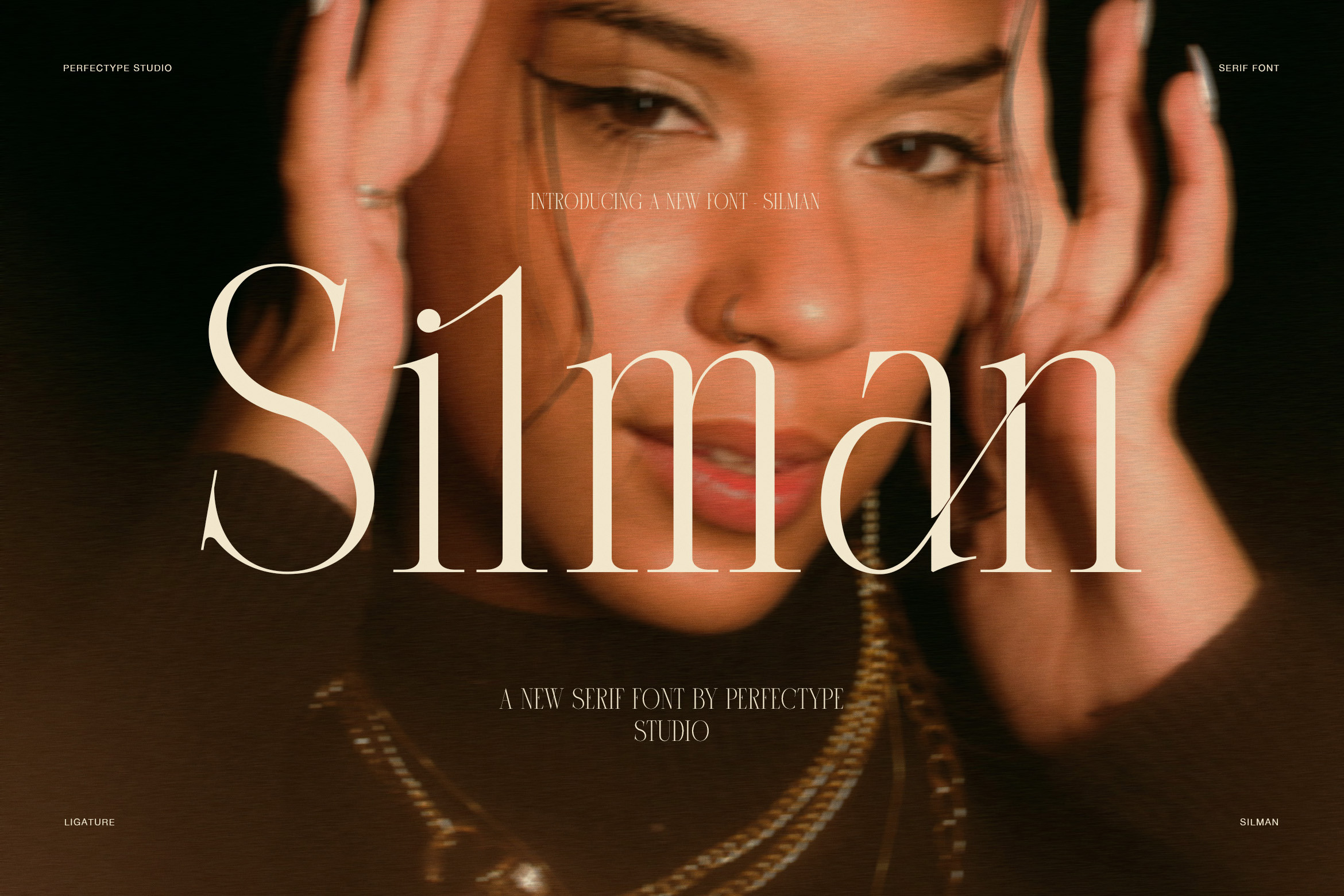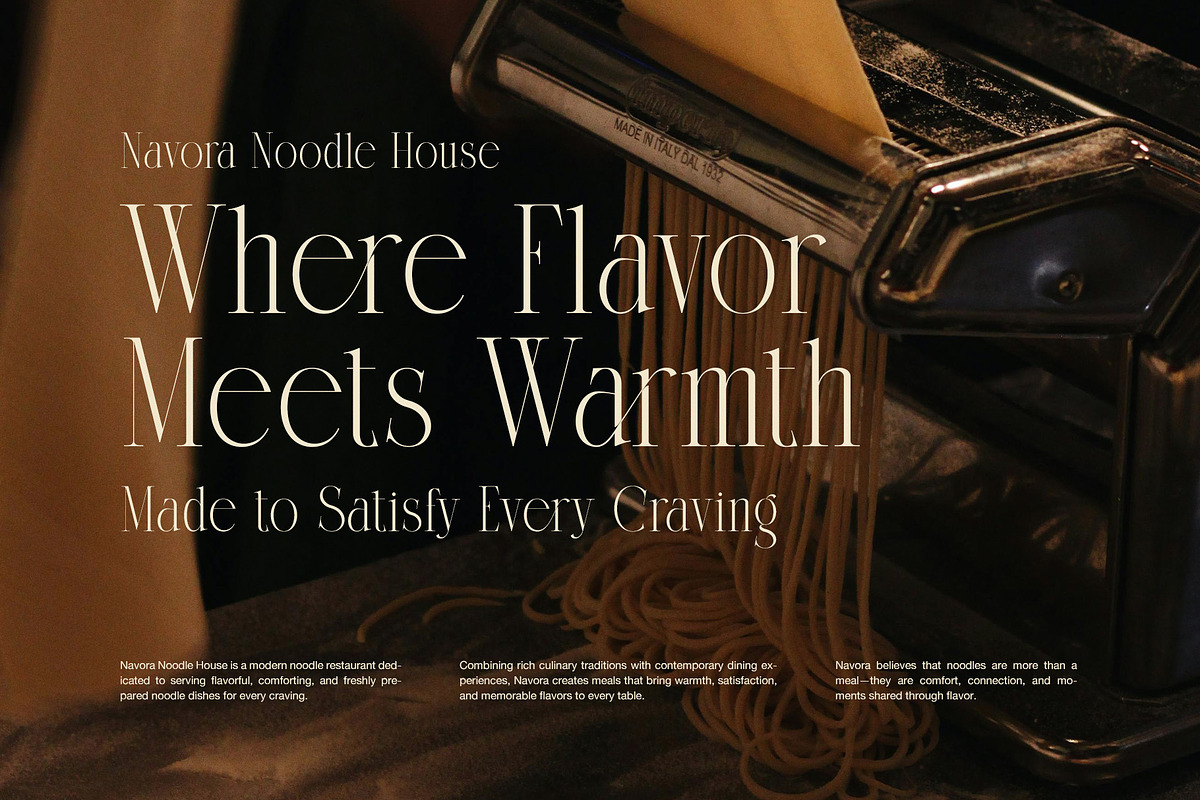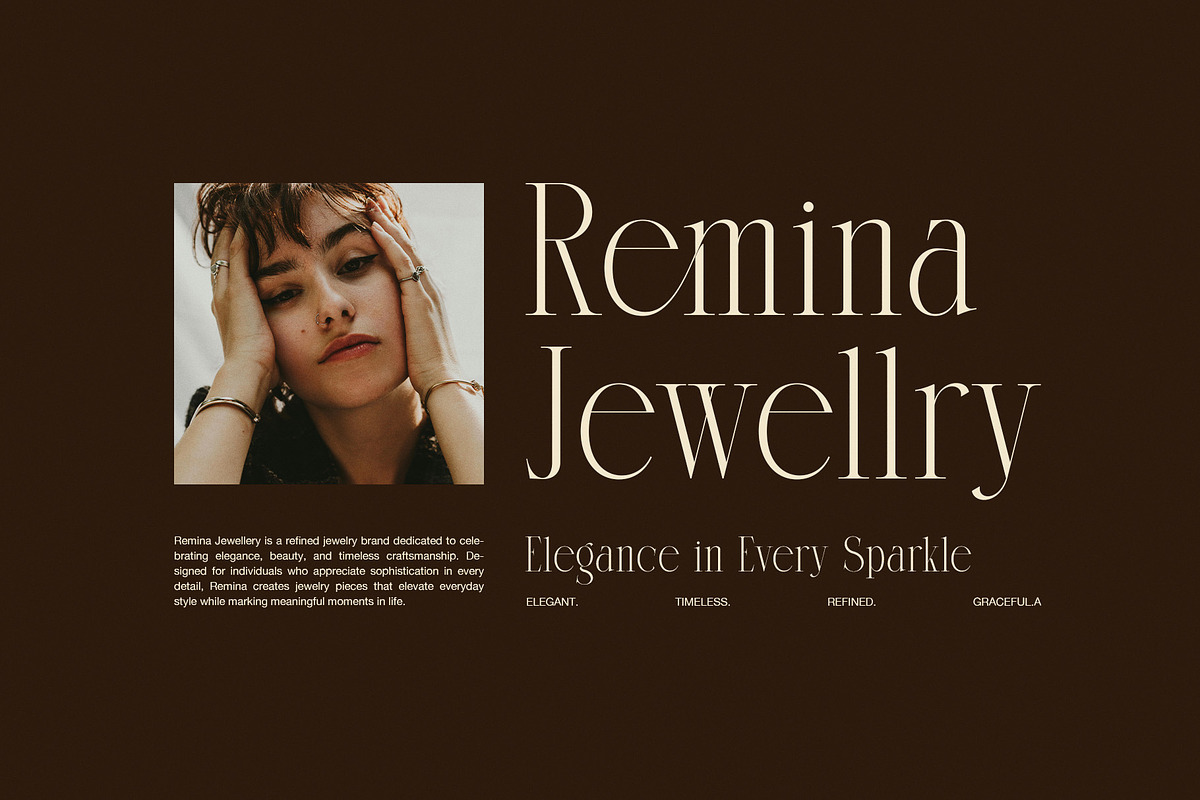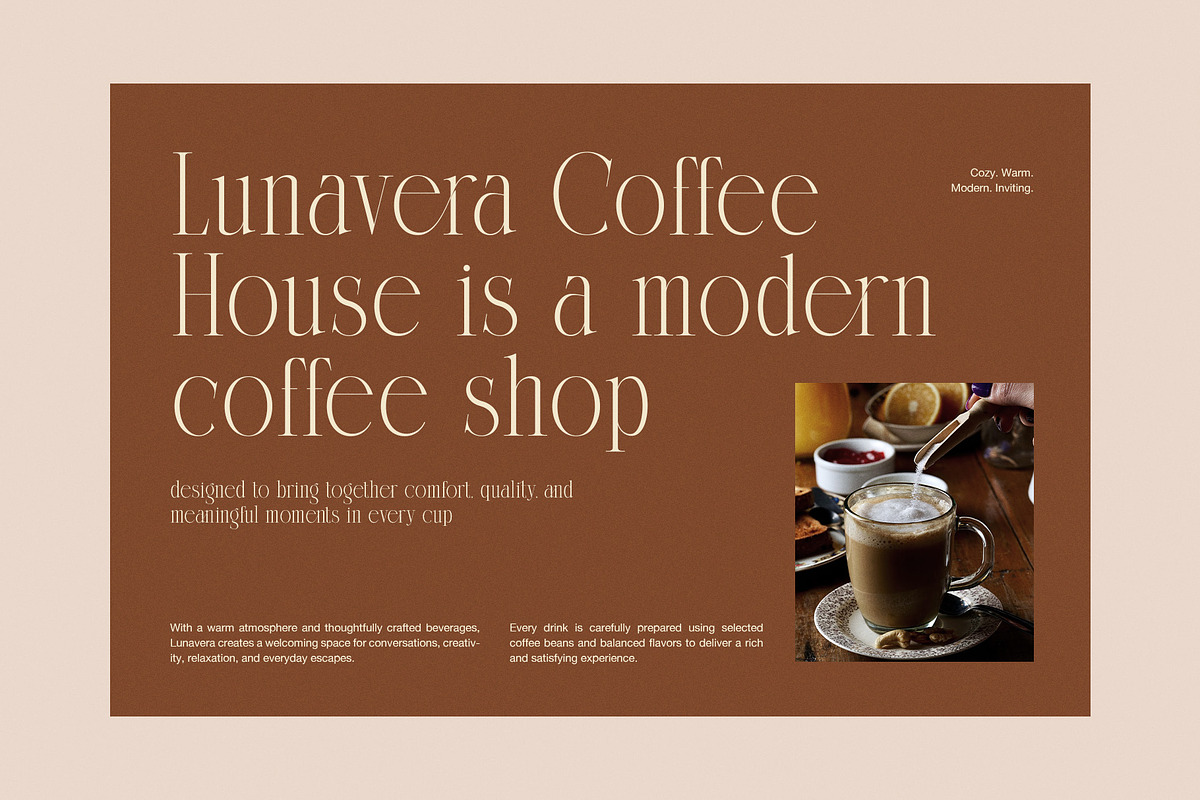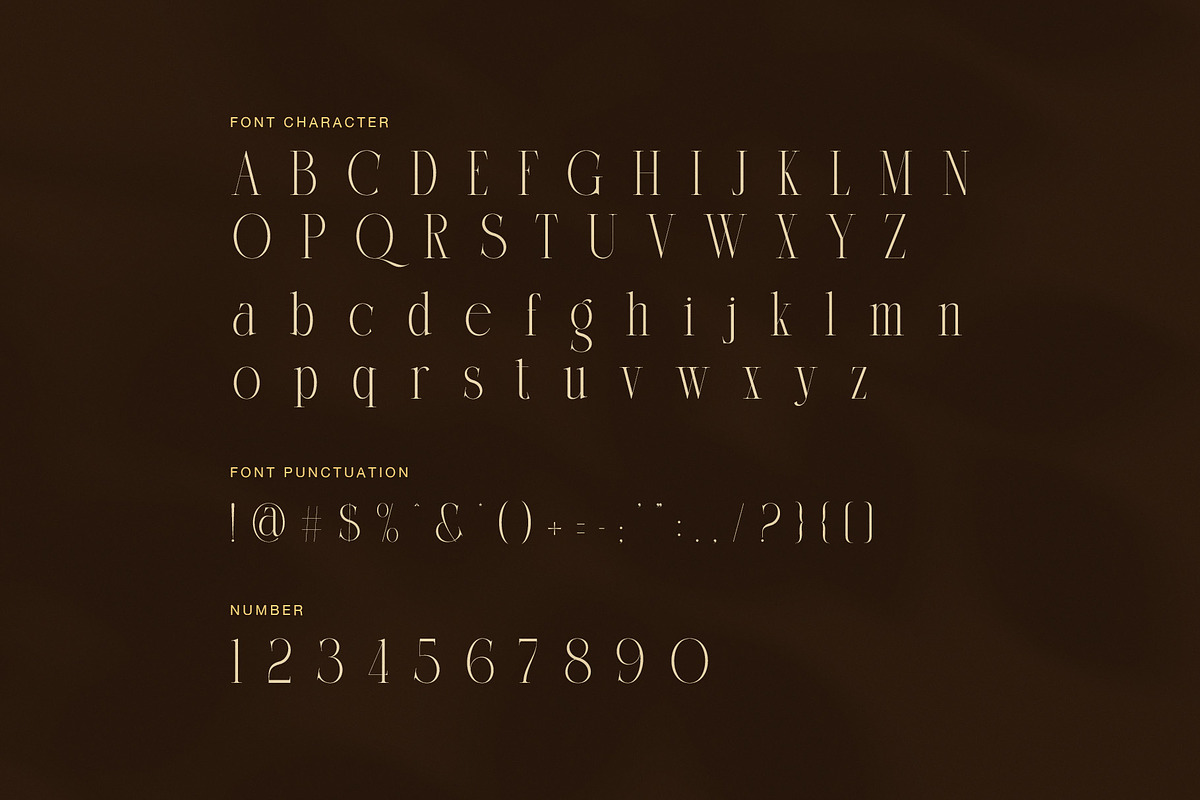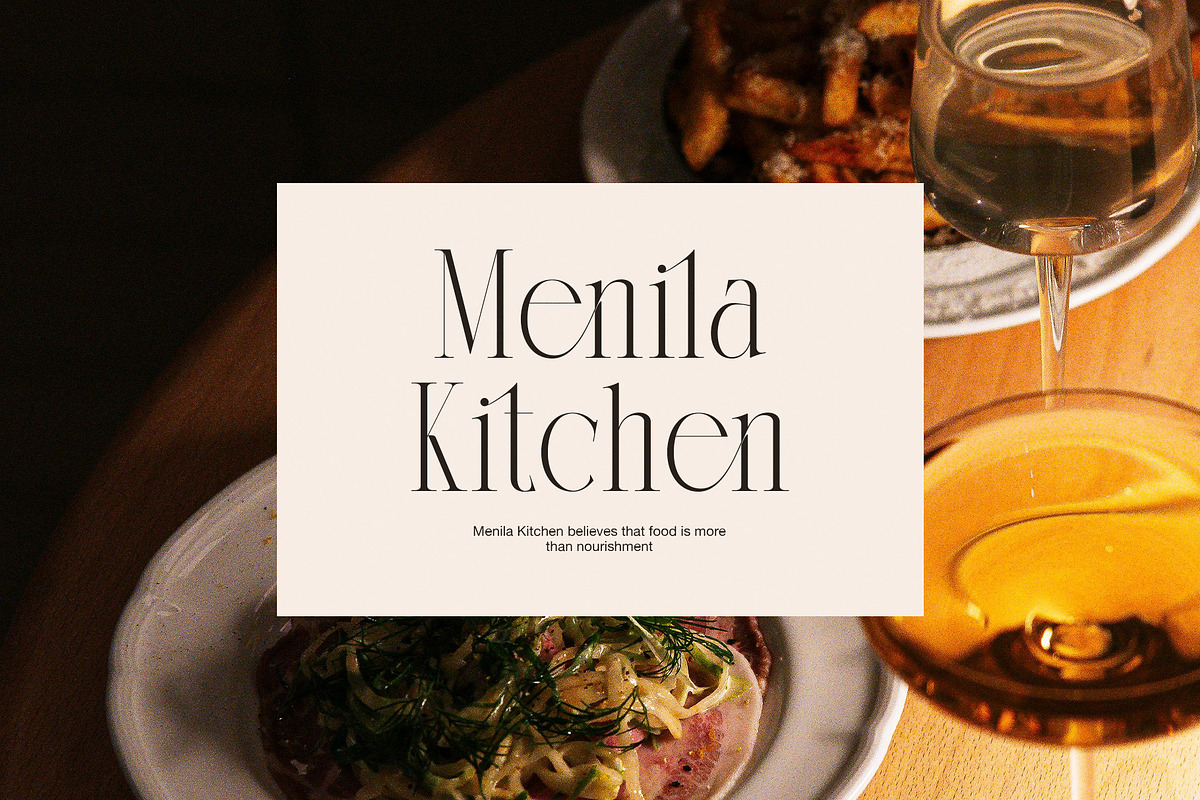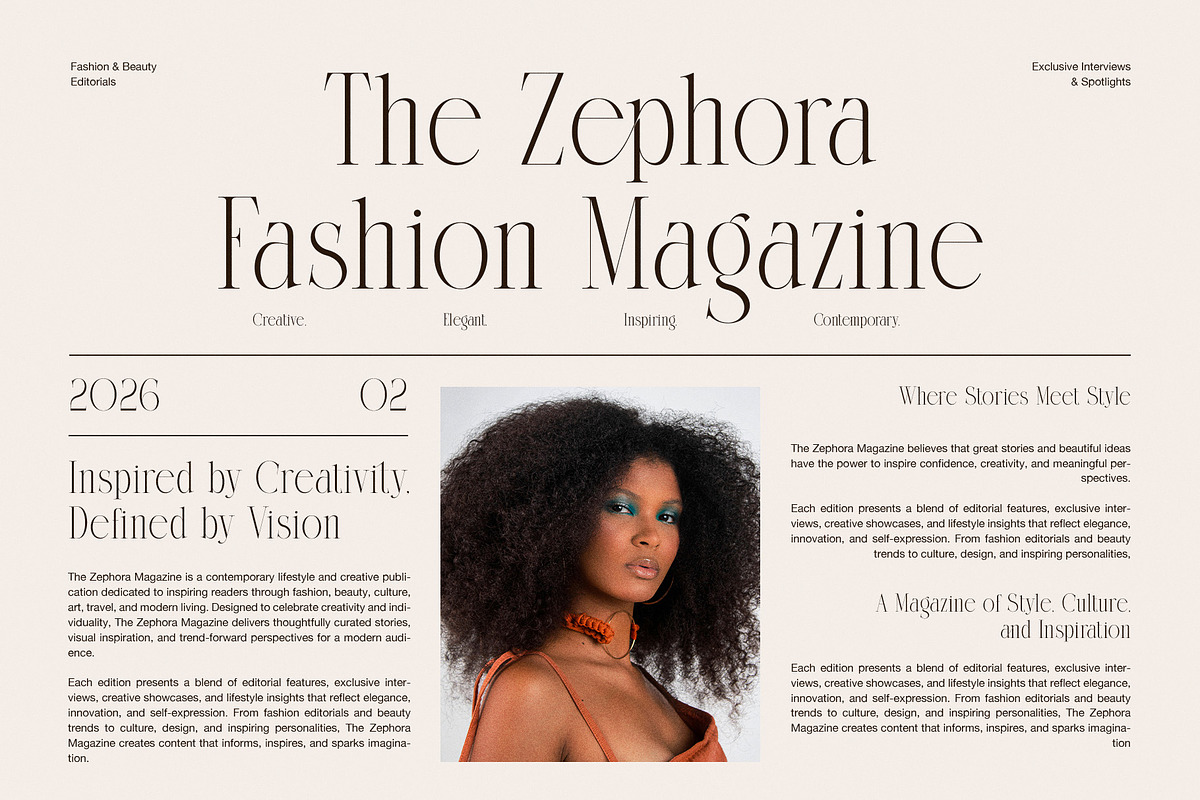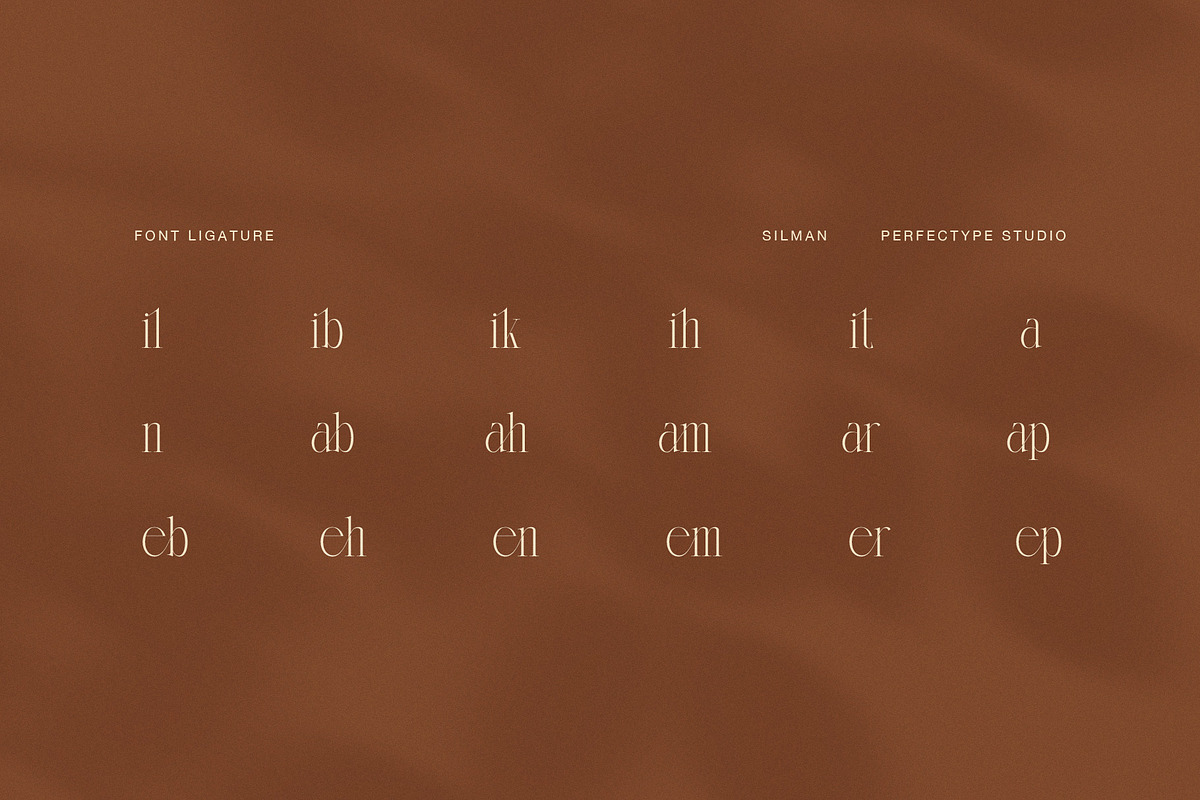
Silman Elegant Serif Font
Silman is an elegant serif font designed for modern luxury branding, fashion editorials, and refined visual identity. It combines high contrast strokes with smooth curves, so it creates a strong yet graceful typographic presence. Moreover, it delivers a timeless aesthetic that works beautifully across both digital and print design projects.
The font presents tall letterforms with soft transitions and carefully shaped curves. In addition, its contrast between thick and thin strokes improves visual impact, especially in large headlines. Therefore, Silman is ideal for magazine layouts, branding systems, and logo design. Meanwhile, the spacing is balanced, so readability stays clear even in expressive compositions.
Furthermore, Silman includes refined ligatures and stylistic alternates. As a result, designers can create unique letter combinations that feel personal and high-end. However, the structure remains clean and controlled, ensuring strong readability at all times. In addition, the font works well in both minimal and expressive design directions.
Silman is highly versatile. For example, it performs well in fashion branding, beauty packaging, wedding invitations, social media graphics, and editorial covers. Moreover, it adapts easily to both light and dark backgrounds, giving designers more flexibility in creative projects. Therefore, it is suitable for premium brands that need elegance with clarity.
Silman works especially well in editorial covers, luxury advertisements, and product packaging. Moreover, it can elevate branding systems for fashion houses, cosmetic brands, and lifestyle projects. Because of its refined structure, it delivers a premium impression instantly. Designers can also use it for posters, quotes, and website headers. Furthermore, it performs strongly in large-scale typography where detail matters most.
Elegant high contrast serif style
Modern editorial influence
Stylish ligatures and alternates
Clean and balanced spacing
Strong readability in display use
Perfect for luxury branding and fashion design
In addition, Silman helps build strong visual hierarchy, so important messages stand out clearly. Meanwhile, its soft curves add emotional warmth to typography. As a result, the font feels both modern and classic at the same time. Overall, Silman is a versatile serif font that enhances creative projects with elegance, clarity, and timeless appeal.